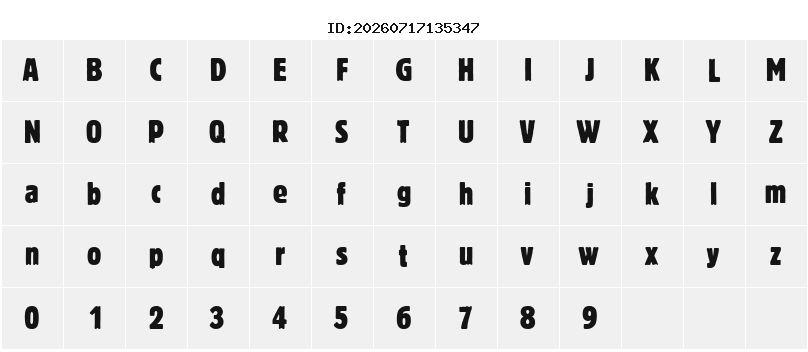
About BlofeldCond.ttf
BlofeldCond.ttf is a modern, elegant sans-serif font designed for ultimate readability and visual harmony. Perfect for branding, headlines, web design, and print materials.